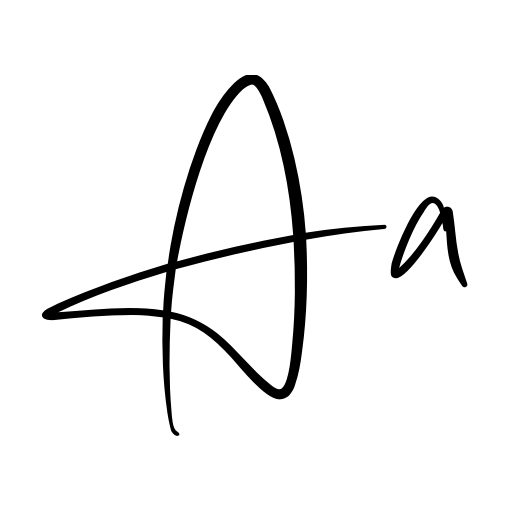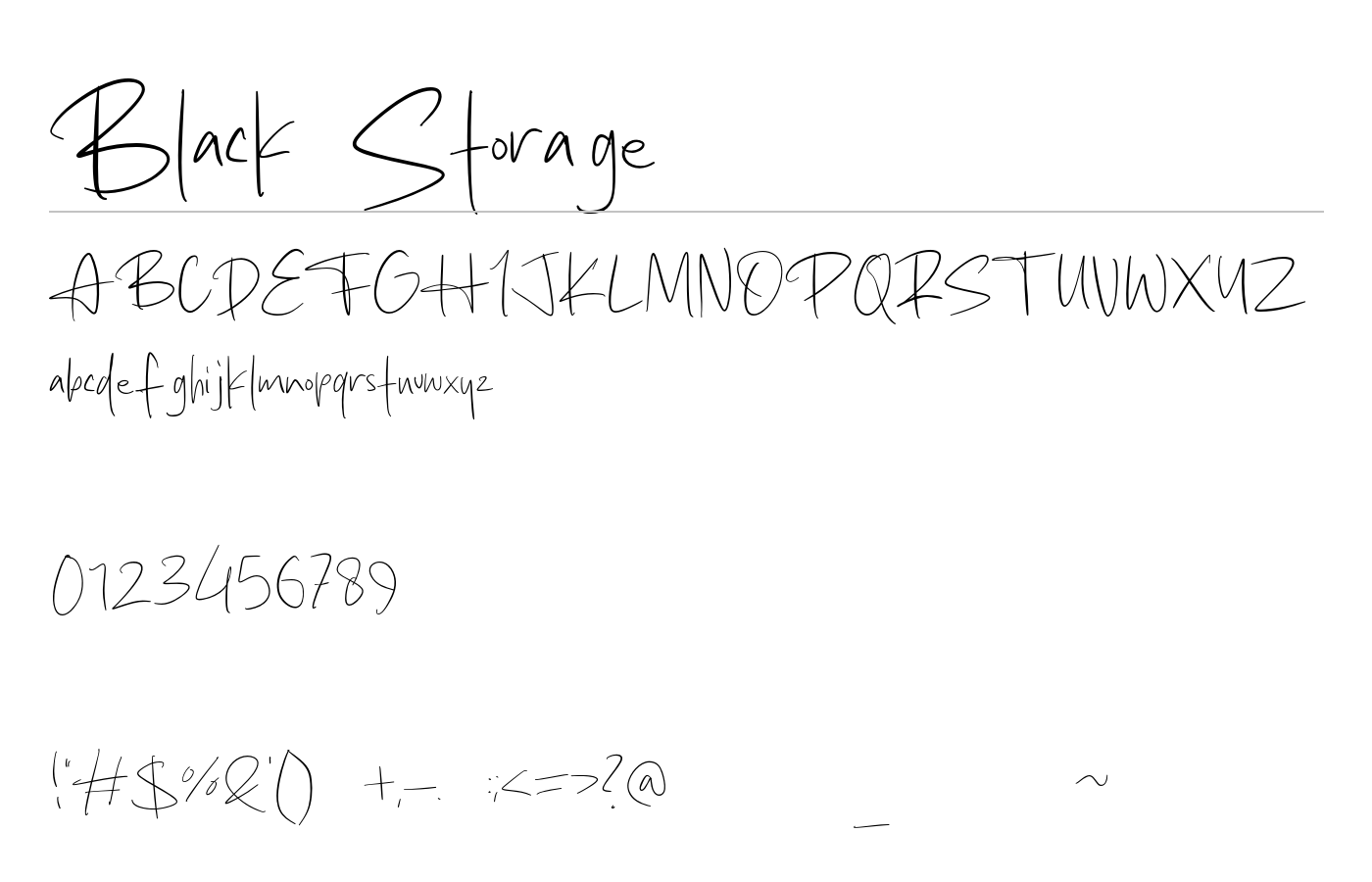
Black Storage is a delicate, handwritten script font with a slender and slightly erratic stroke style, giving it an informal and personal touch. Its tall, narrow letterforms and lively character shapes make it perfect for designs that need a whimsical, creative, or intimate feel. This font works well for casual branding, personal notes, invitations, and artistic projects that benefit from a natural, handwritten look.
Black Storage Font